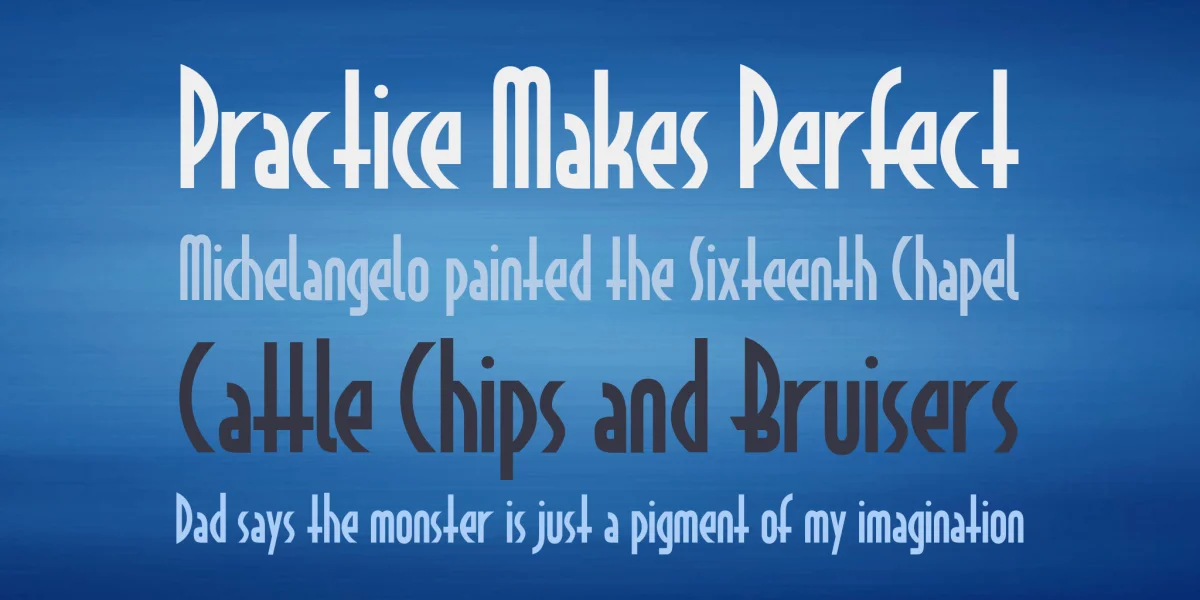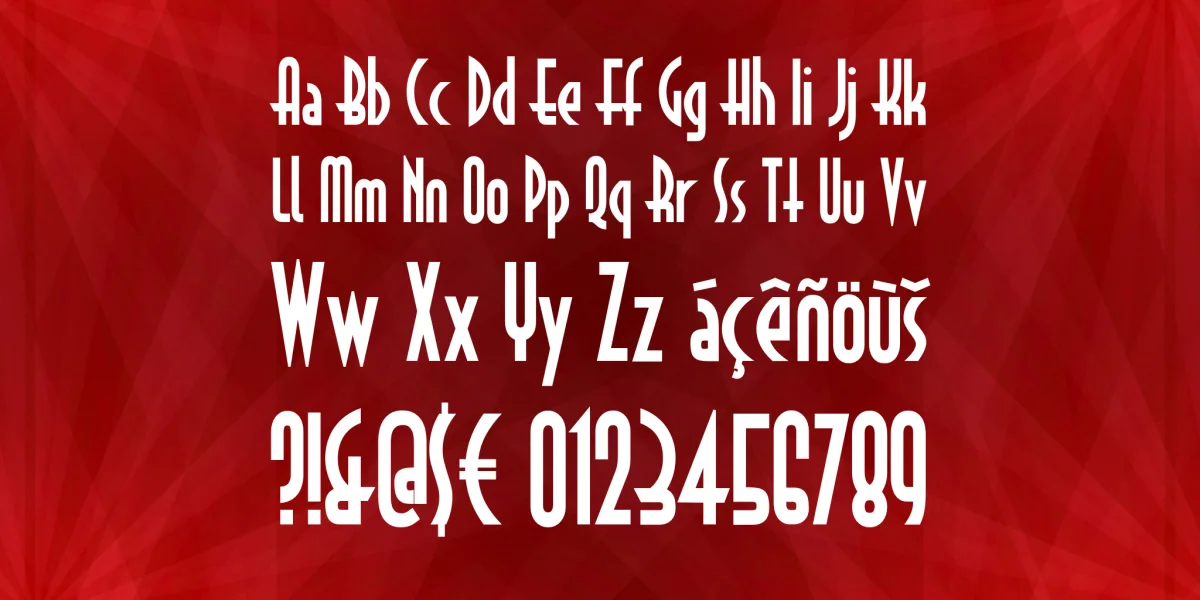
Translated from the original German description: It has been about a quarter of a century ago, since a very popular display font was drawn. She first appeared under the name of Anna, and later as a more or less legal replica under the name ITC Anna, Astrid or Decotech TL among the user community. Also, I had already used this font. However until today, this font was only an uppercase font, which means it had no lowercase letters. With Astrud I have attempted to equip this font with lowercase letters. And while I was at it, I supplemented the font so that it can really be used anywhere in Europe, where latin letters are used.